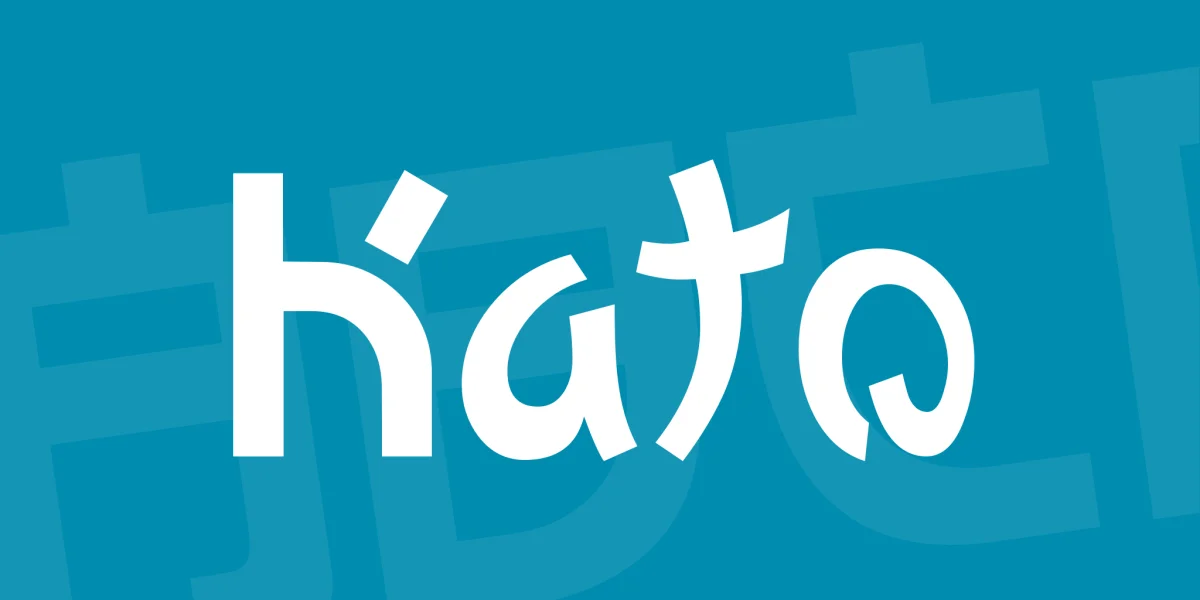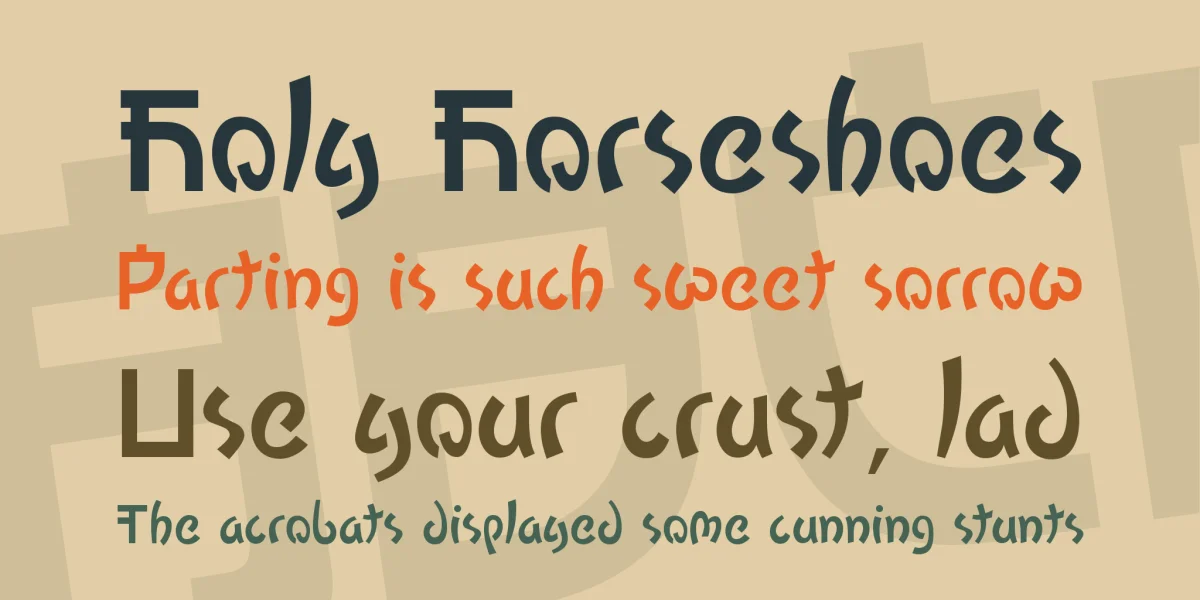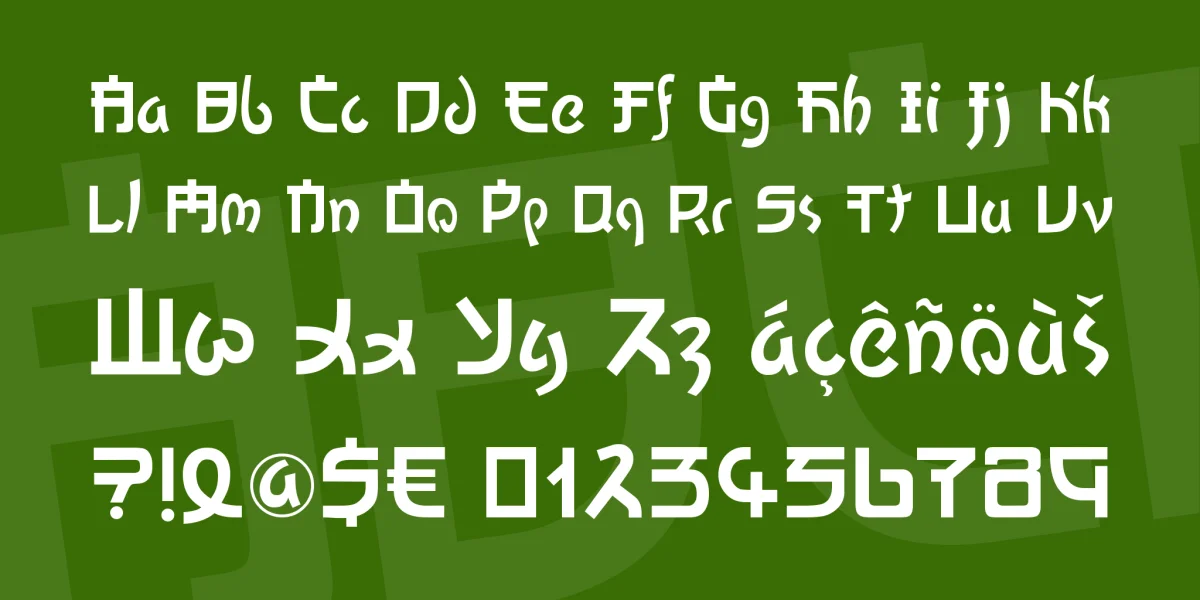
Originally conceived as two separate Japan-inspired fonts, the upper and lower cases are designed for use separately, but can be mixed when logic and proportion have fallen sloppy dead.